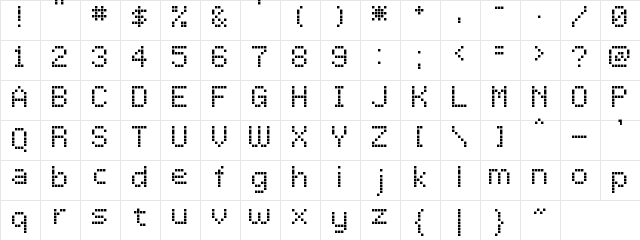
LCDDot Regular
Design Context for LCDDot Typeface
LCDDot is rooted in pixel-grid construction, making it a natural fit for game UI, retro computing aesthetics, and digital nostalgia projects.
Well-suited to indie game interfaces, retro computing aesthetics, and pixel art-adjacent design work.
Pro Tip: Use LCDDot at sizes that align with its pixel grid for the sharpest rendering — scaling to non-integer multiples can introduce unwanted blur.